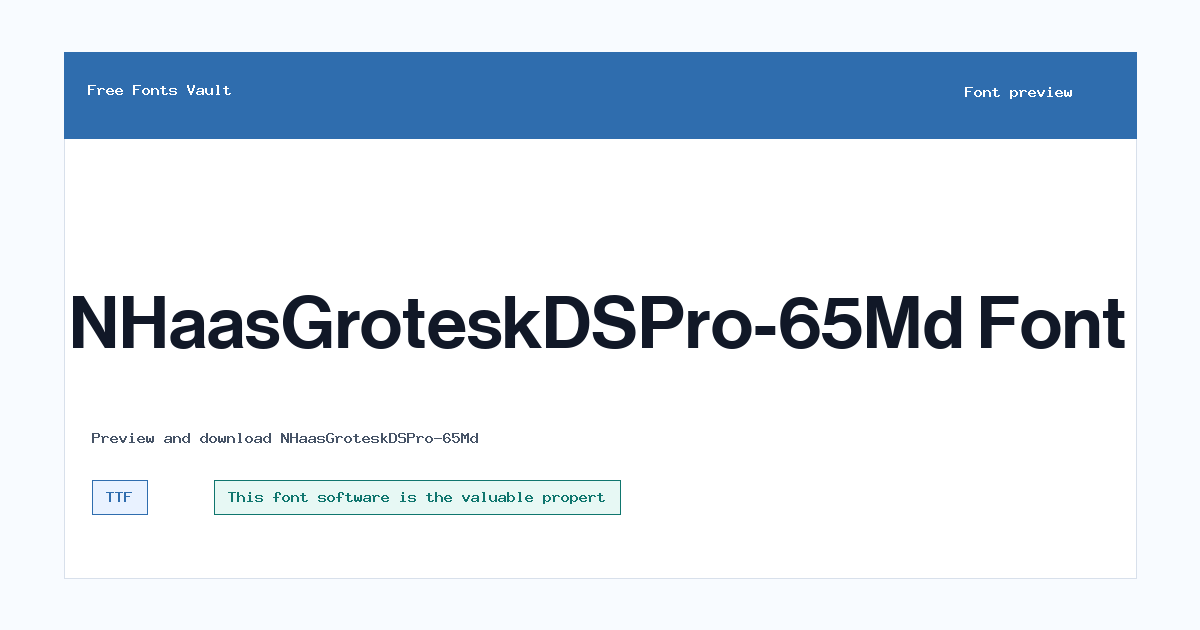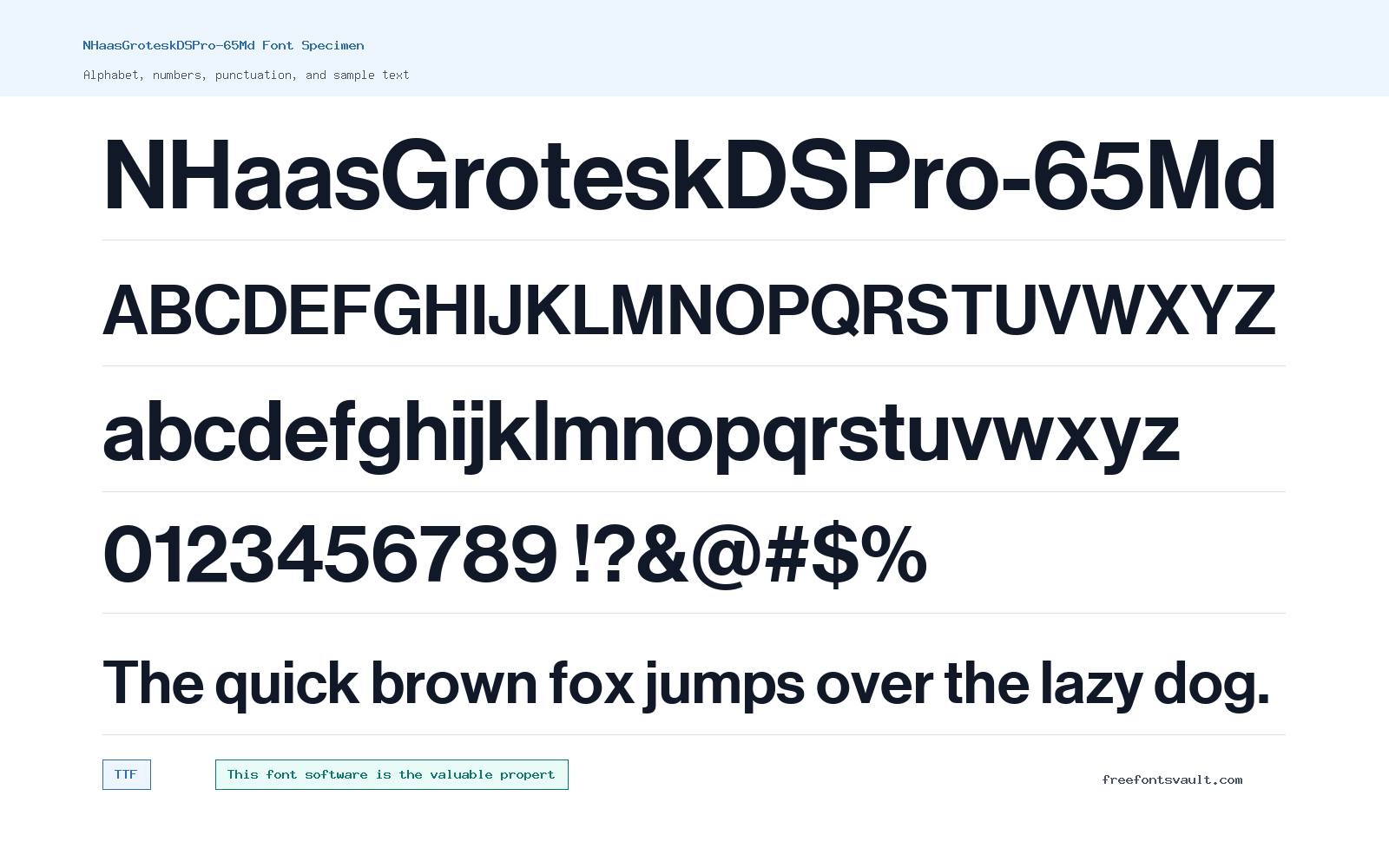
NHaasGroteskDSPro-65Md
- Designer Christian Schwartz
NHaasGroteskDSPro-65Md is a medium-weight TrueType font variant with a clean grotesk-style name and a display-oriented file name. Use the preview tool to test your own words before deciding whether it fits your layout.
About NHaasGroteskDSPro-65Md Font
NHaasGroteskDSPro-65Md comes as a TTF file named Neue-Haas-Grotesk-Display-65-Medium.ttf. The variant is marked as regular style with a 500 font weight, so visitors can expect a medium text color rather than a thin or heavy cut. Its name points to a display member of the Neue Haas Grotesk family, which makes it most sensible to test first in headings, navigation labels, poster-style lines, and short pieces of interface text.
Because only one variant is listed, plan your design around a single medium weight unless your project already has matching family members from a licensed source. Try uppercase and lowercase samples, numbers, punctuation, and the exact words you want to use. A medium grotesk can look balanced in headlines, but long paragraphs may need generous line spacing and careful sizing. Pair it with a quieter serif or a neutral sans for body copy if the page needs contrast.
- Single listed variant, useful for focused previewing of short text and display settings.
- Headlines, section titles, menu labels, and short UI text where a medium sans weight is useful.
- Testing brand-style wordmarks or display lines in the preview box before choosing a licensed font setup.
- Design comparisons where you want to see how a 500-weight sans handles spacing, numerals, and punctuation.
The designer field names Christian Schwartz. No foundry name is listed in the available font details.
Start by previewing your real headline or label text at several sizes. Check spacing around tight letter pairs, how numbers align, and whether the medium weight stays clear on light and dark backgrounds. For longer reading, test line height and paragraph width carefully, or pair it with a body font that is licensed for your project.
What weight is this font?
The variant is marked with font weight 500, which is commonly treated as a medium weight.
Can I use it for body text?
You can test it, but the file name points to a display cut and only one medium variant is listed. It is safer to preview longer paragraphs carefully and use a dedicated body font if readability is the priority.
Who is listed as the designer?
Christian Schwartz is listed as the designer.